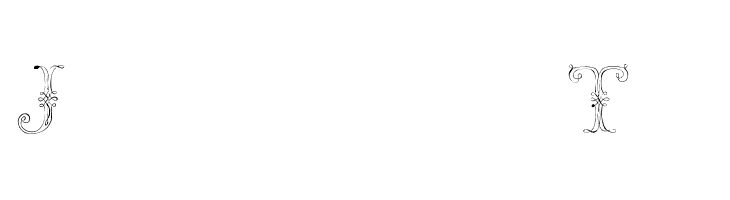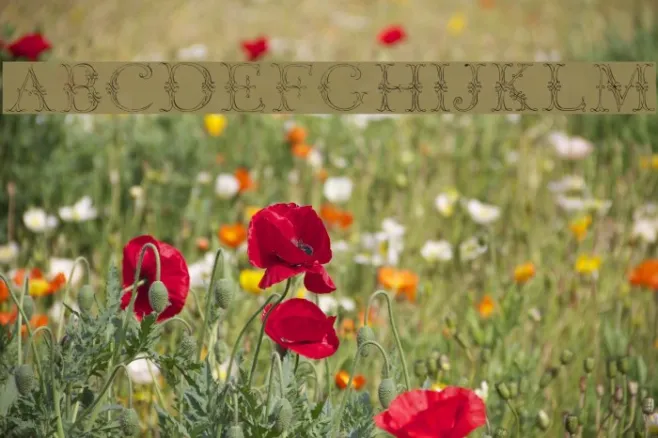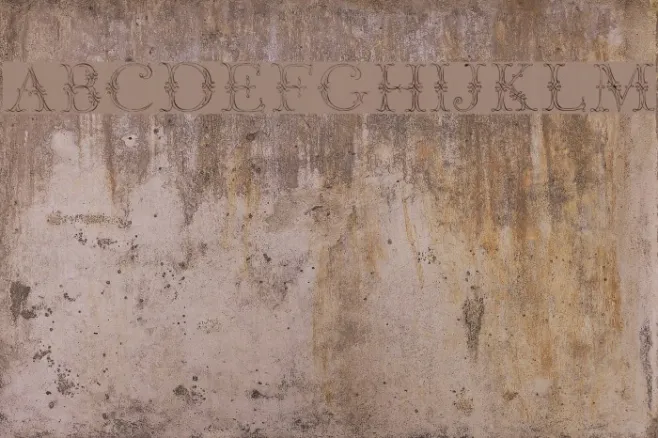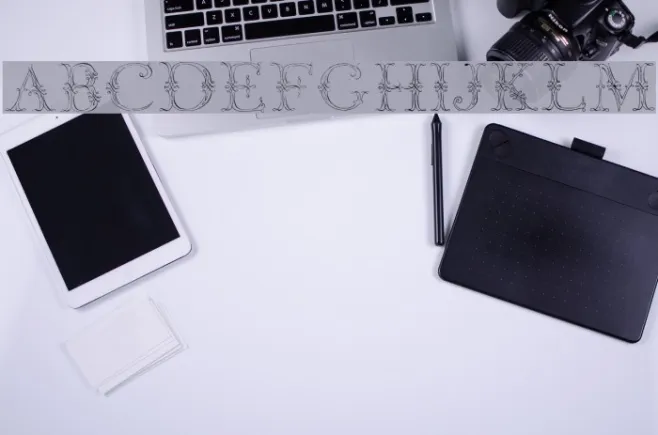
JaggardTwo Font
JaggardTwo Description
This font features an intricate and decorative design, with each letter adorned with elaborate flourishes and ornamental details. The characters are serif-based, with elegant curves and embellishments that give them a vintage and artistic appearance. The overall style is reminiscent of classical calligraphy, with a touch of whimsy and sophistication. The uppercase letters are particularly striking, with their detailed and ornate patterns that make them stand out. This font is perfect for projects that require a touch of elegance and historical charm.
Proposed ProjectsIdeal for wedding invitations, vintage-themed posters, book covers, and branding that requires a classic and sophisticated look.